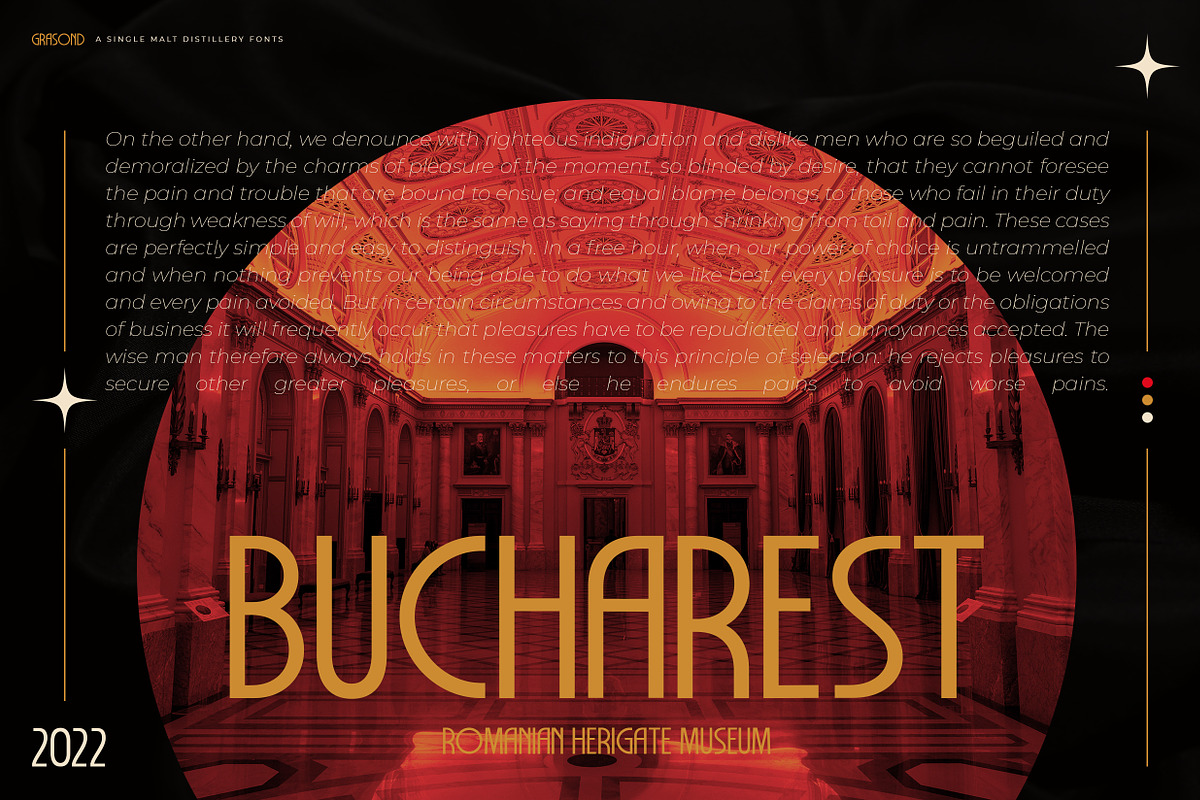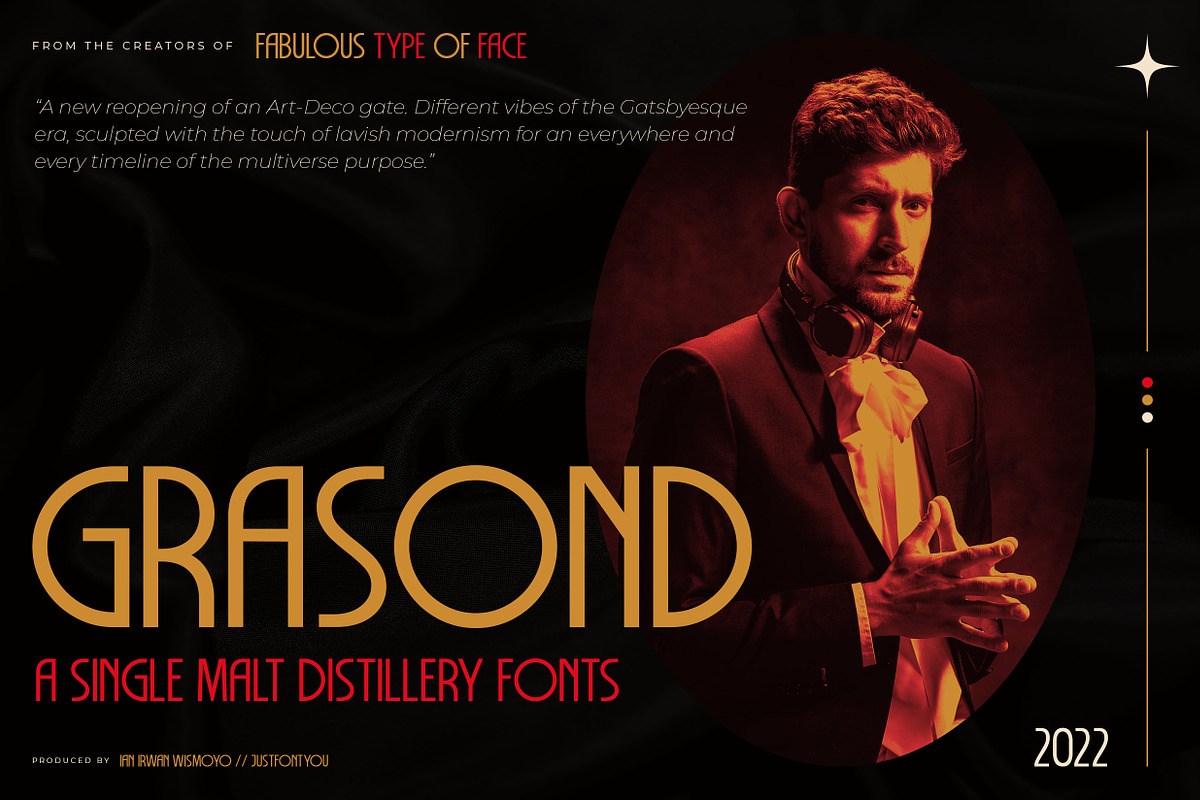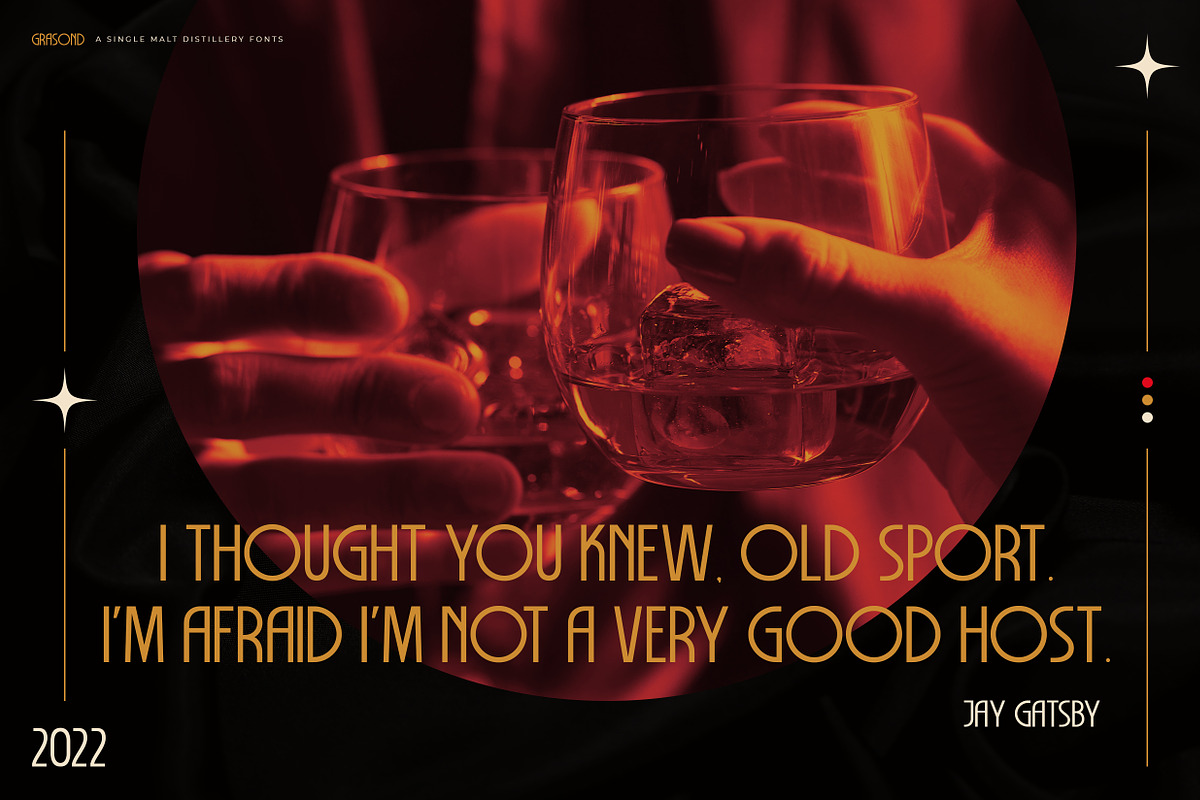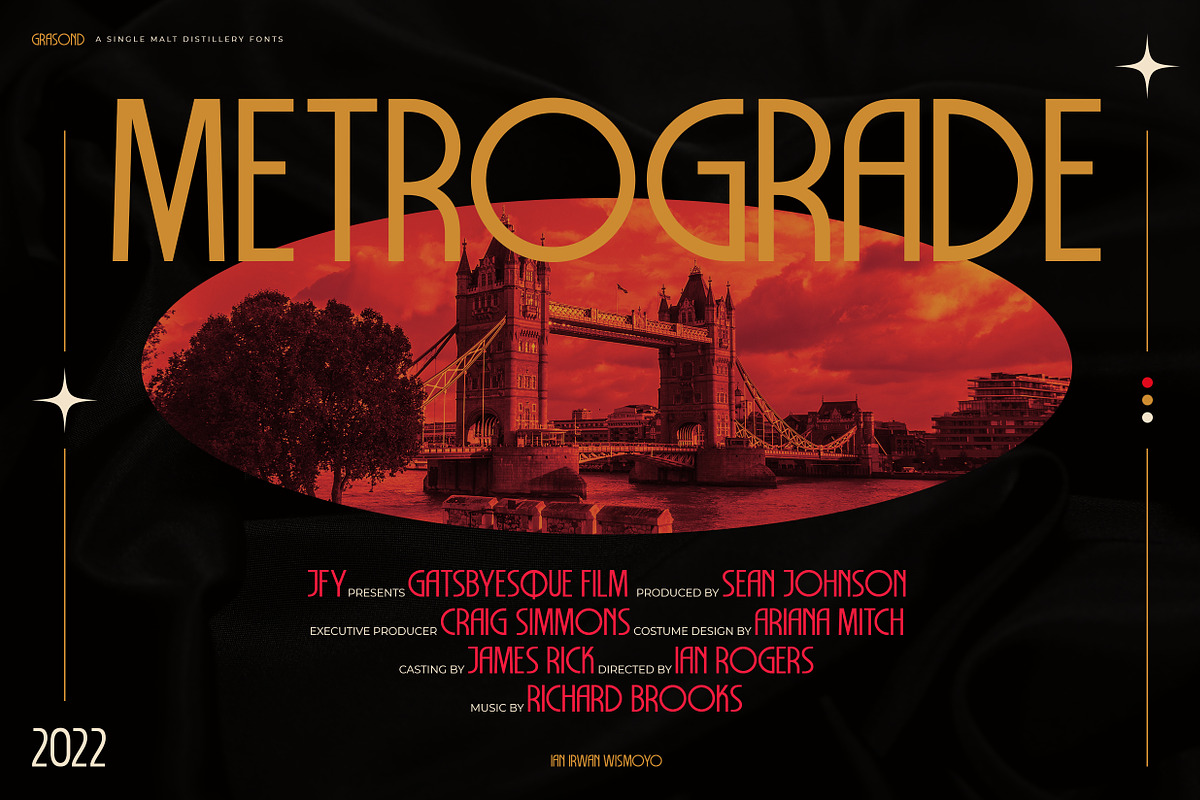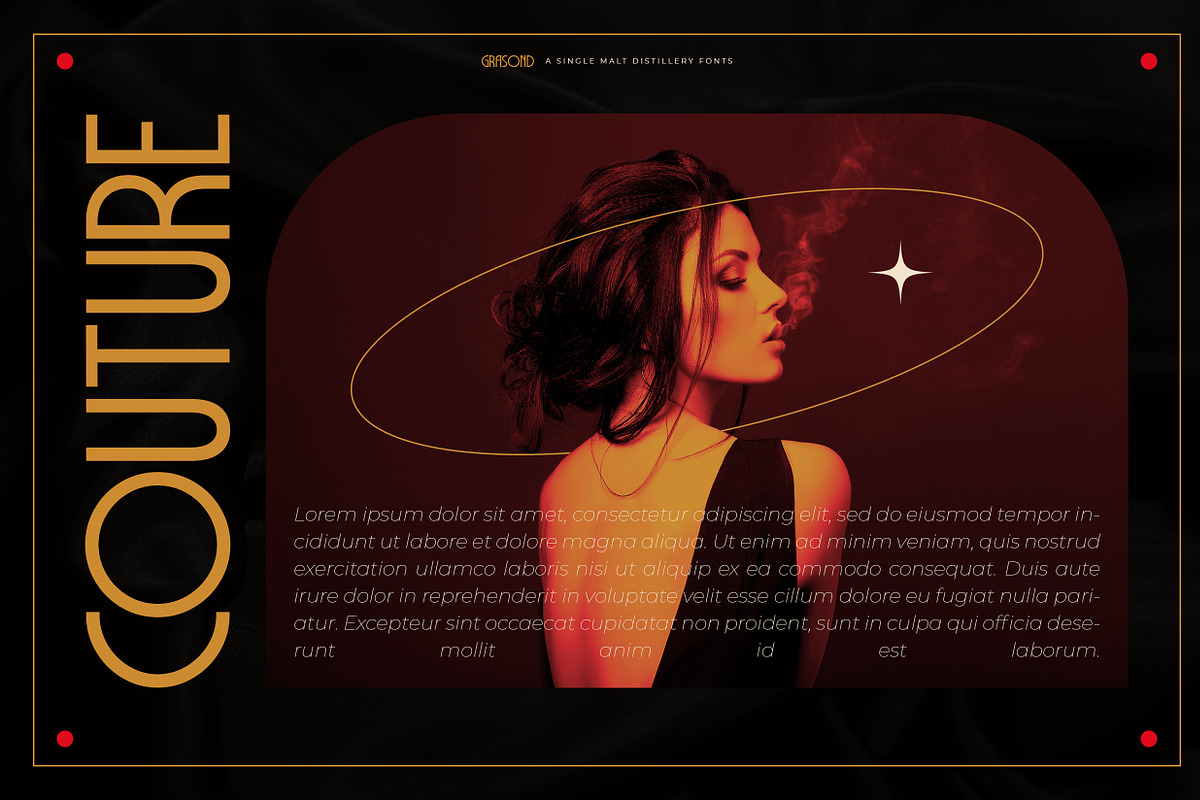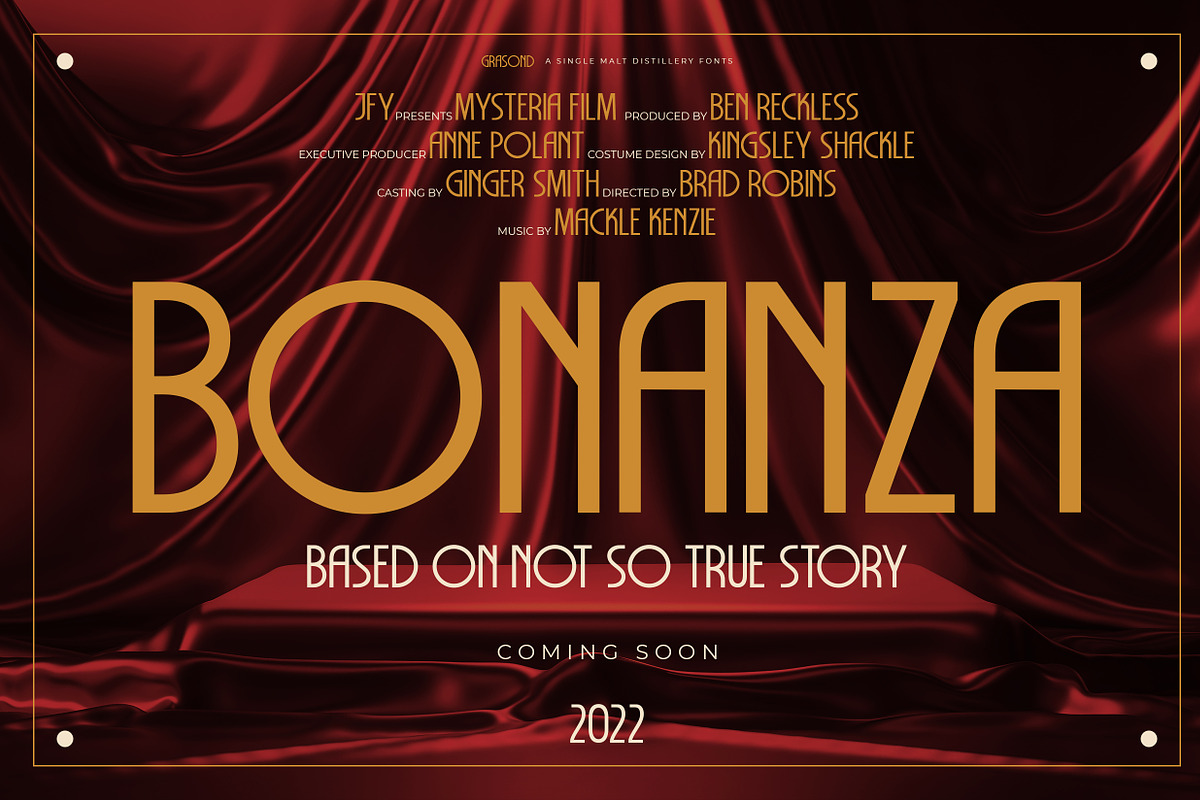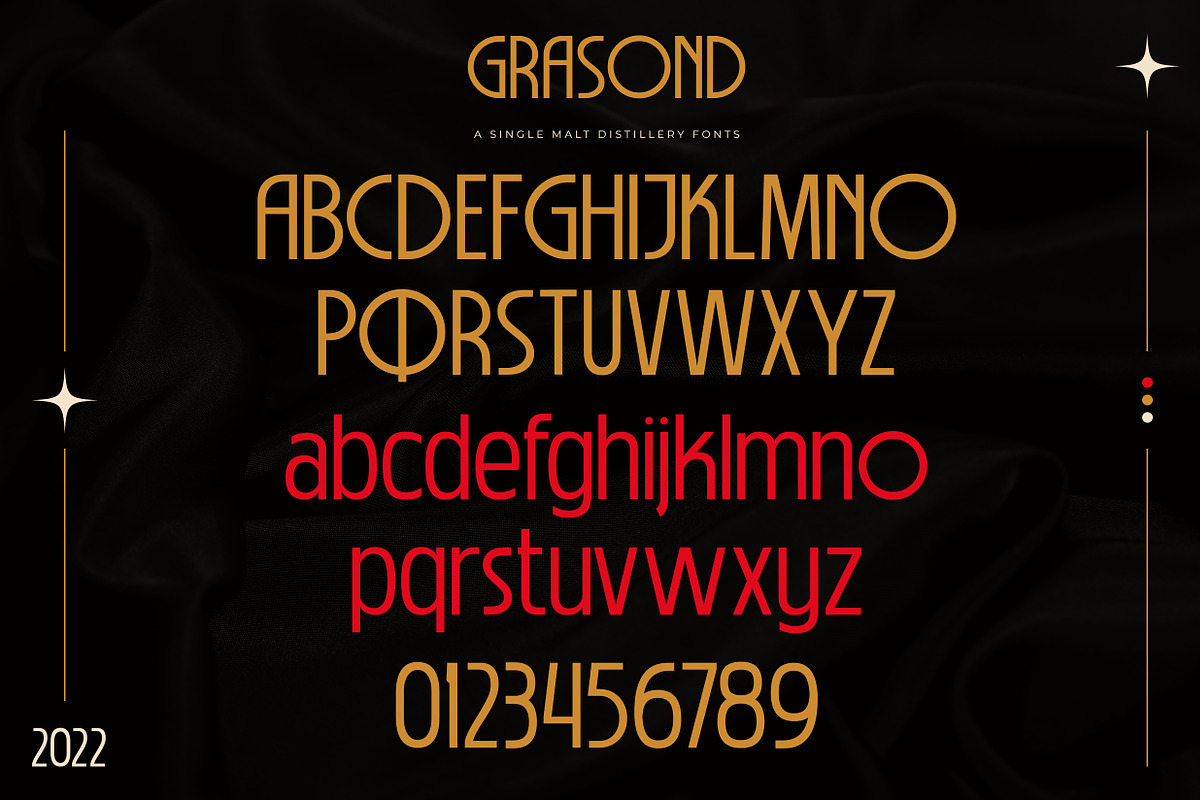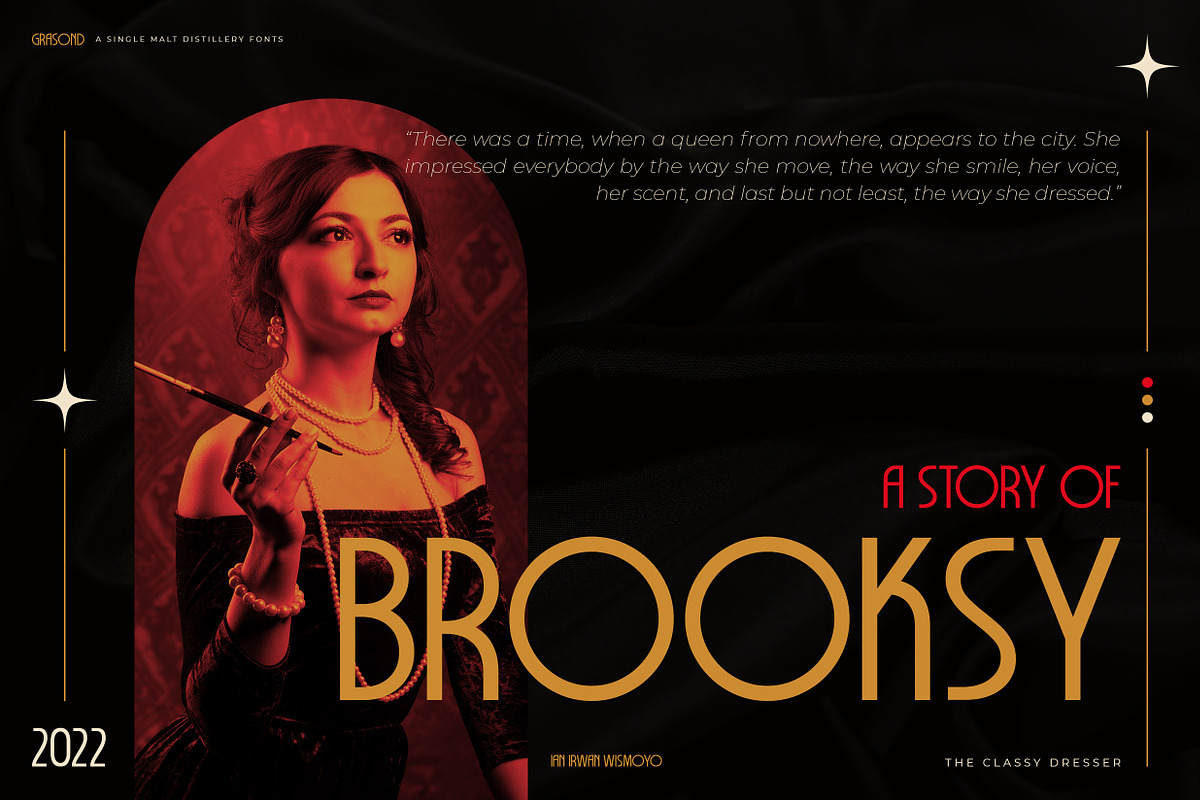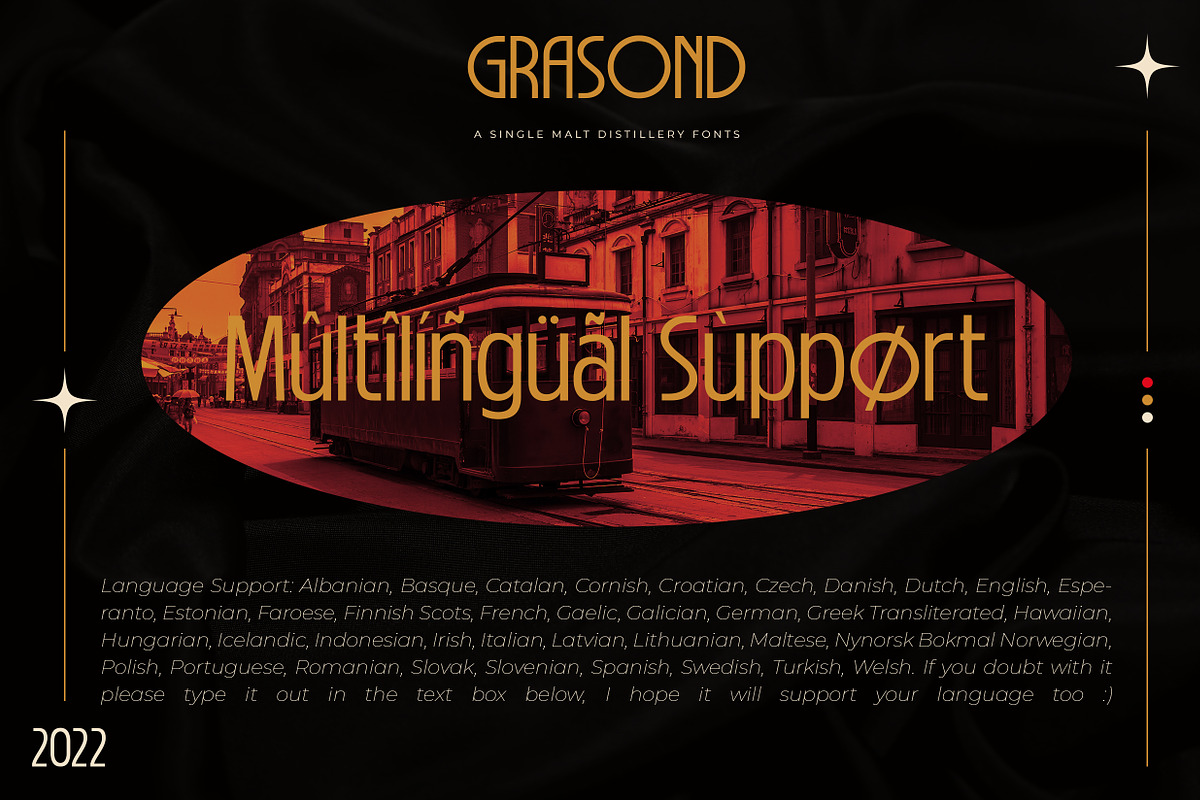
GRASOND - Vintage Deco Fonts
A new reopening of an Art-Deco gate. Different vibes of the Gatsbyesque era, sculpted with the touch of lavish modernism for an everywhere and every timeline of the multiverse purpose.
Inspired by the purpose above, here's an attempt to resurrect the great from the past. Please welcome, GRASOND. A vintage art-deco display sans serif fonts.
Perfectly fit for your luxury branding, logo, vintage design, beer labels, signage, anytime you need a massive throwback, please, be my guest, oldsport.